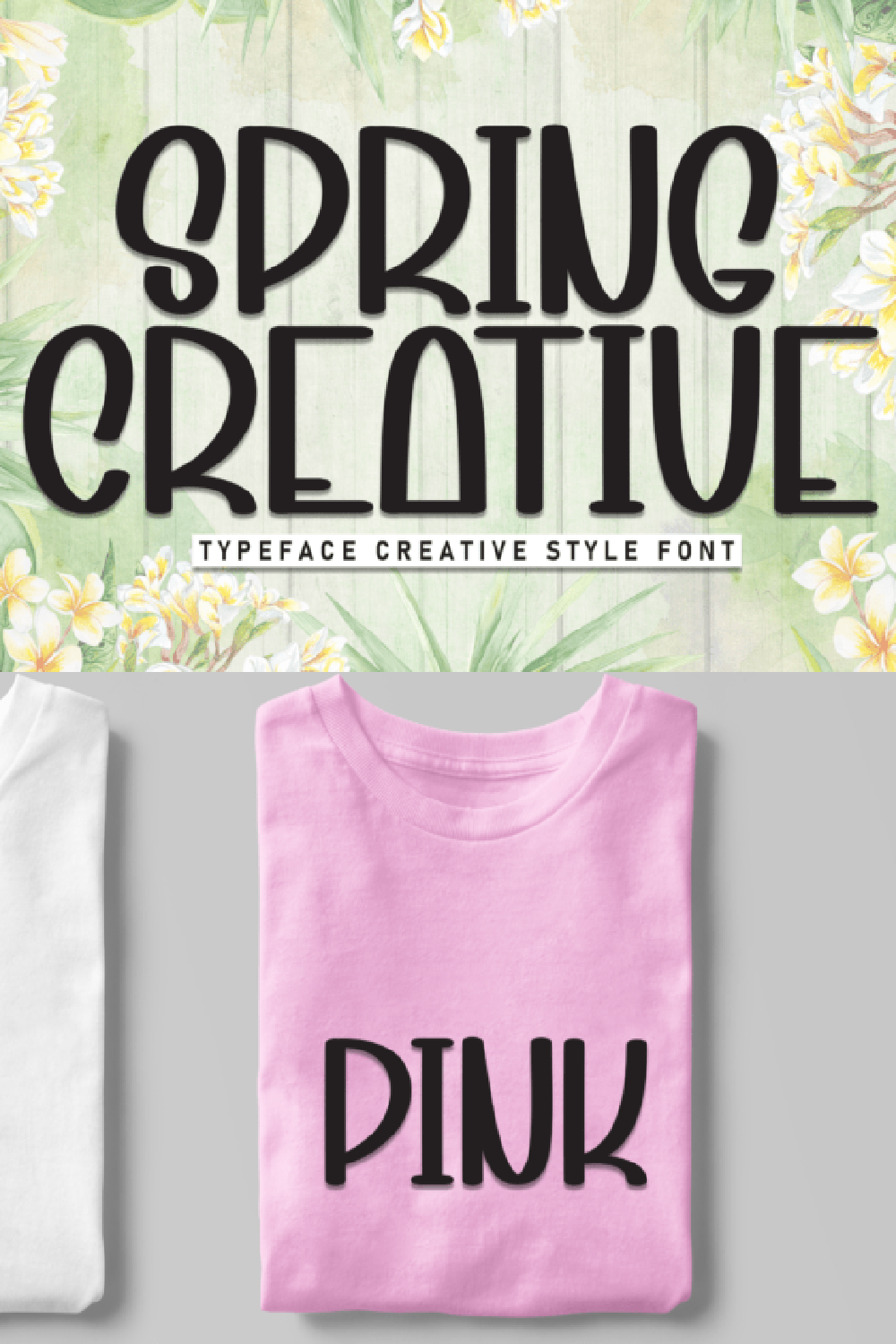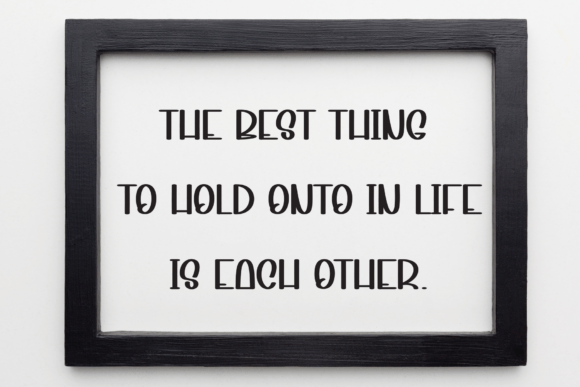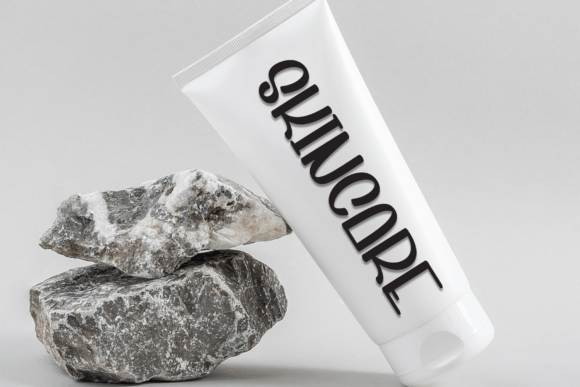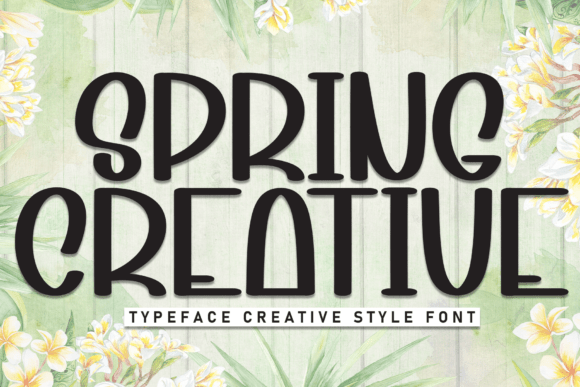
Spring Creative Font
About the Spring Creative Font
Discover the charm of Spring Creative Font. This font is a perfect blend of modern aesthetics and classic appeal. Spring Creative is a casual and neat display font that radiates a fresh, friendly vibe. With clean lines and a relaxed structure, it’s perfect for packaging, posters, and social media graphics. The approachable design adds charm and clarity to projects while maintaining a polished appearance.